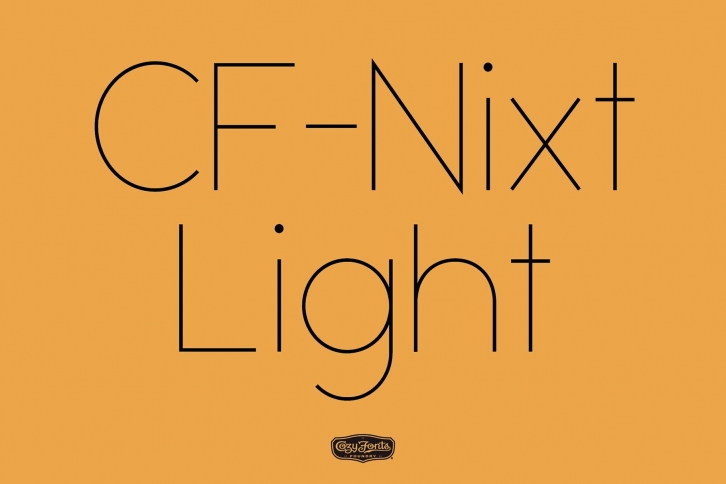
CF Nixt Font Family New from CozyFonts Foundry. Designed and Released in February 2021 by Tom Nikosey. This new font family, currently with 7 Styles, is an alternative to Helvetica, Arial, Gill Sans, Gotham, & Futura in its appeal and clean readability.
CF Nixt has a similar design aesthetic to those aforementioned in that its design, structure, and feel crosses decades of design appeal and reference. From Mid-century, through the Swiss ‘60s, decades of succeeding modern architecture through the turn of the 21st century.
Nixt’s glyphs are timeless, clear, ultra-legible in all styles and weights. Best use in Advertising, Branding, Signage Design, Architectural graphics, Fashion, Posters, headlines, bylines, Print & Digital Graphics.
There are, at first publishing, 7 Styles: Extra Light, Light, Regular, Italic, Book, Bold, & Extra Bold. There are more styles in the works and will be added when completed. So check back!
The Inspiration behind the CF Nixt Fonts is the Bauhaus, Mid-Century Industrial Design, Art Deco through Moderne Era Architecture, American Pottery, and American Design of the Twentieth Century.